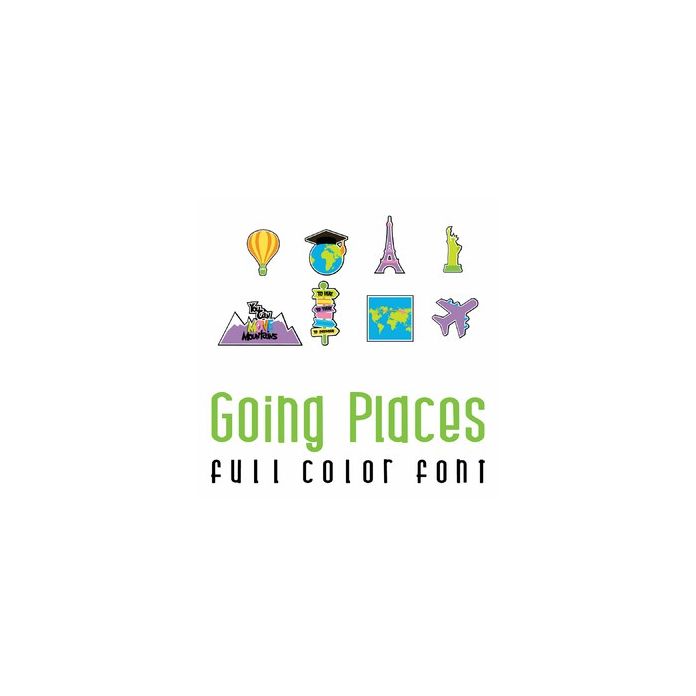
This fun full color doodlebat font features all the things perfect for graduation and travel. Perfect for cards, crafts, gifts, decor, scrap book pages, planner stickers and more!